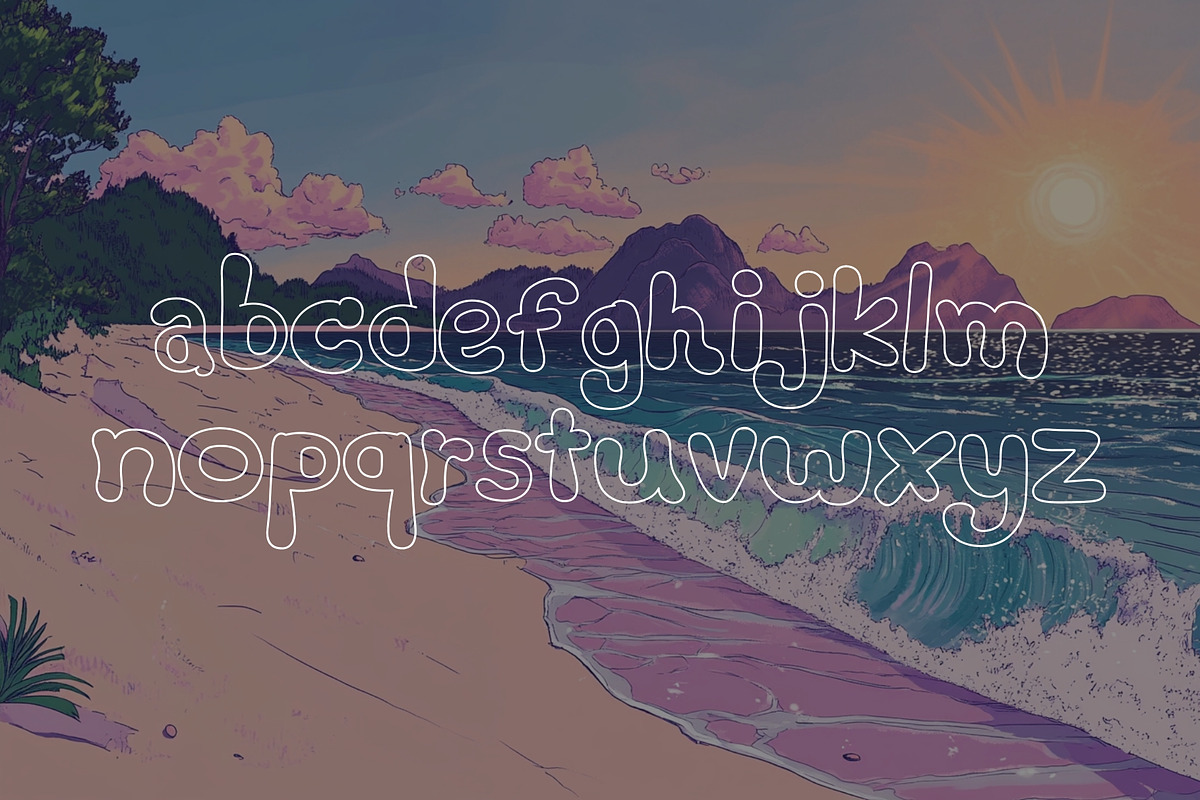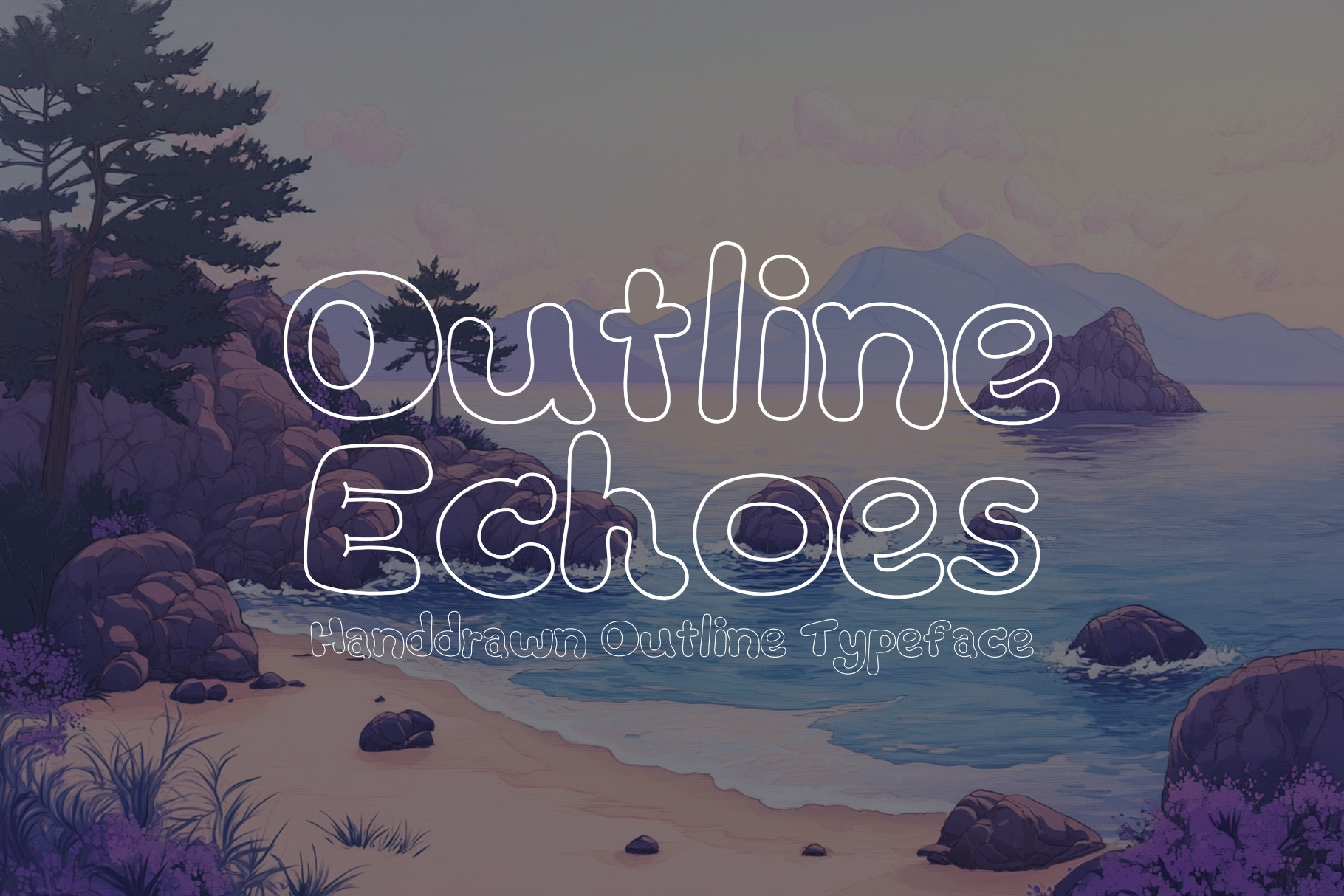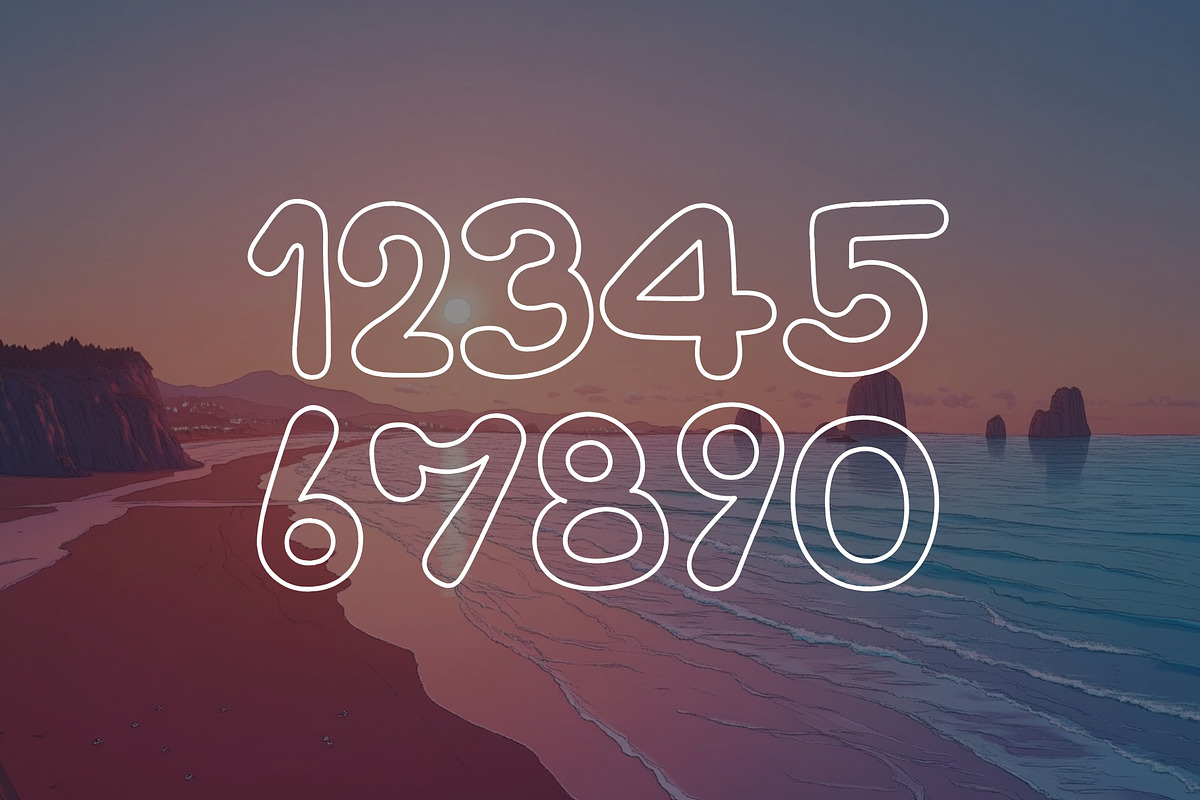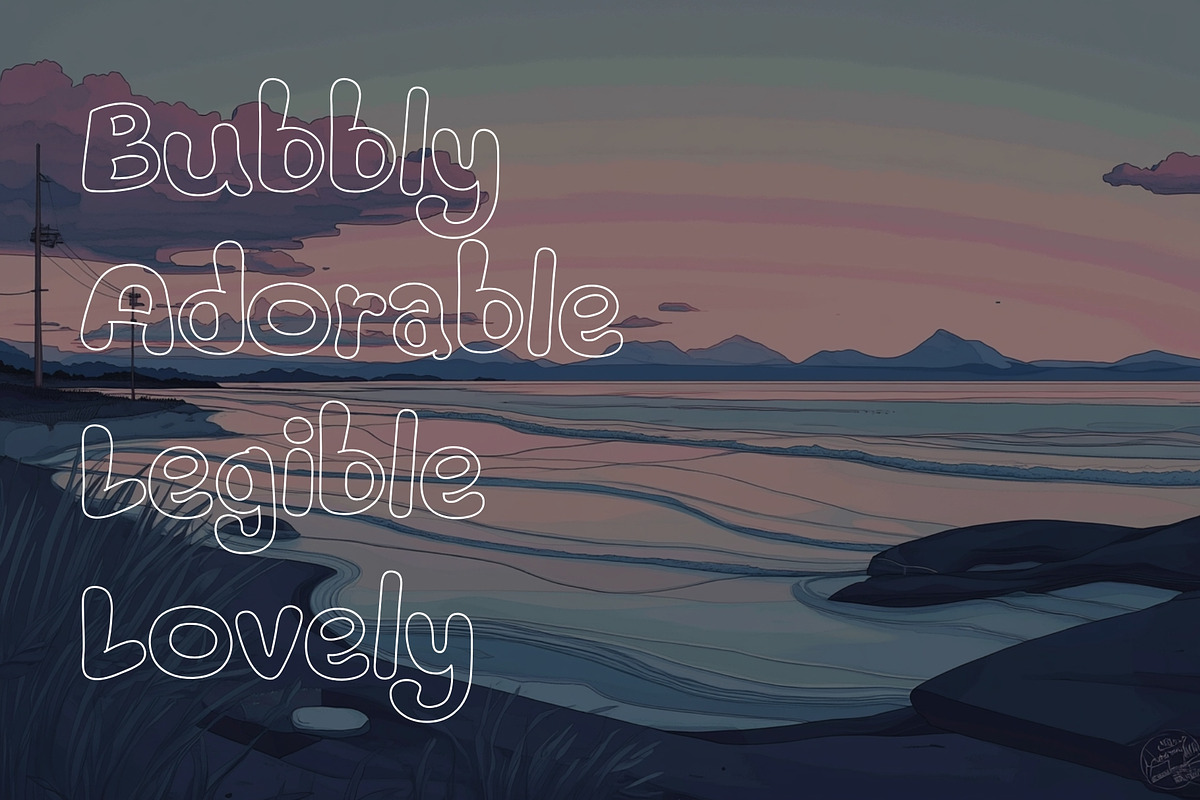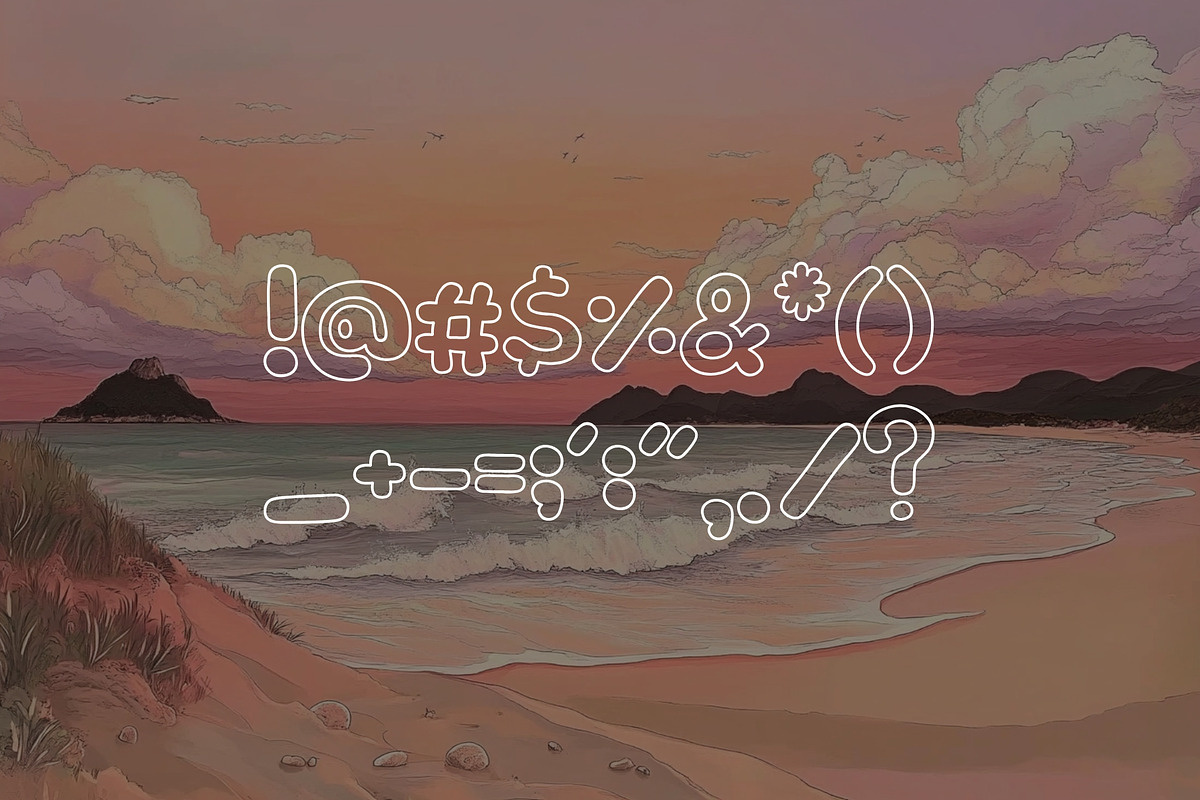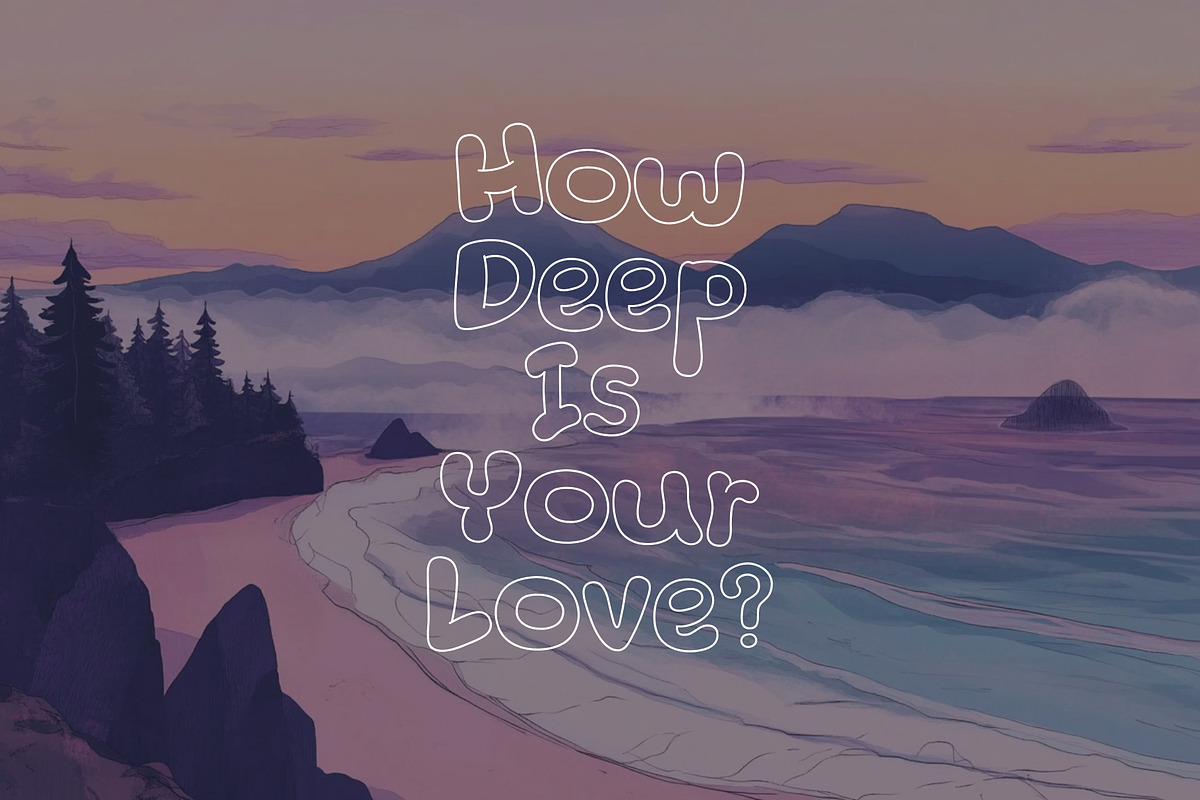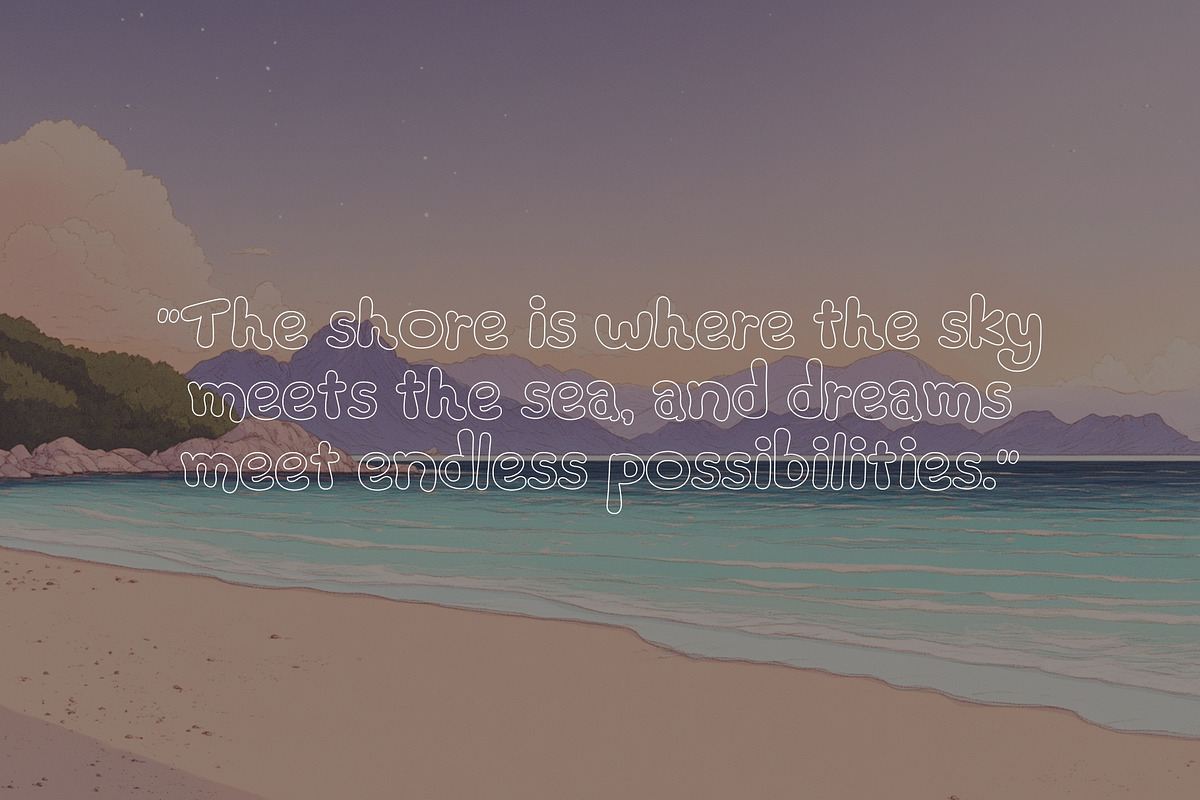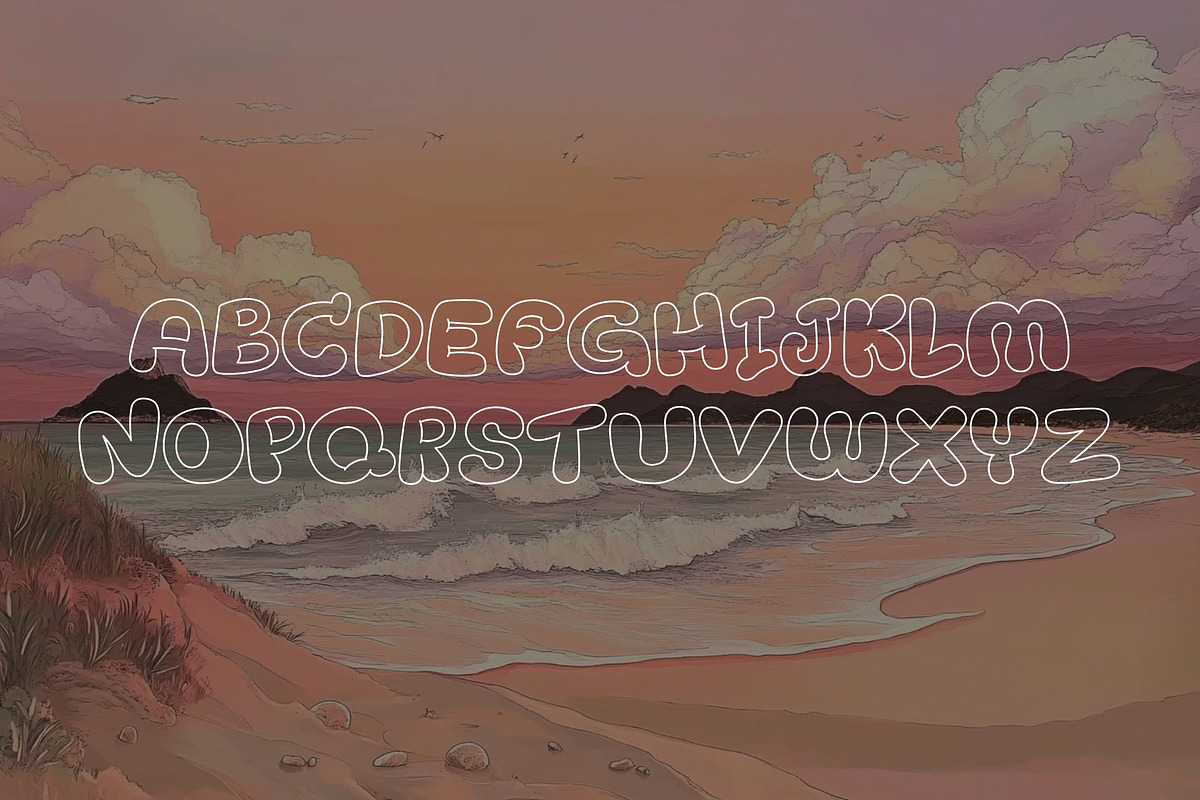
Outline Echoes - Outline Typeface
Let your words bounce with charm using Outline Echoes, a bubbly, friendly, and irresistibly cute hand-drawn outline typeface!
With its soft curves and lighthearted personality, this font is perfect for fun and not-so-serious projects—whether you're designing playful logos, whimsical posters, adorable stickers, or charming social media graphics.
Outline Echoes brings a joyful and carefree energy to your work, making every letter feel like a doodle straight from a daydream-filled notebook. Whether you're crafting for kids, creatives, or anyone who loves a bit of bubbly fun, this font is sure to make your designs pop with personality!
So go ahead—scribble, create, and let the echoes of your imagination come to life with Outline Echoes!